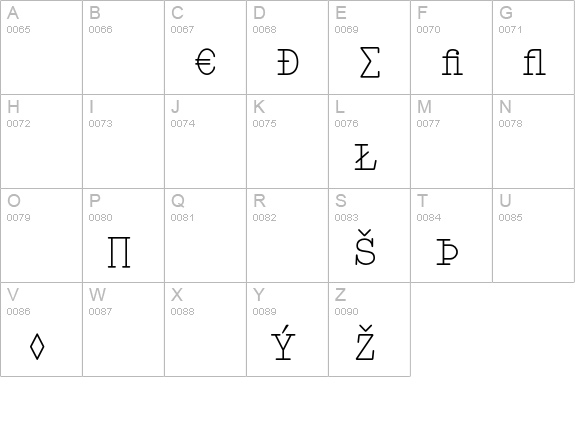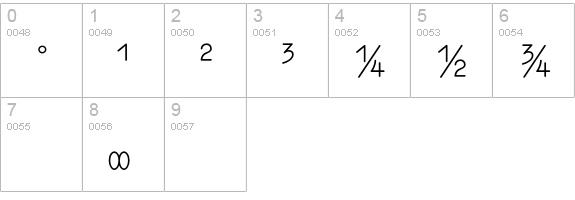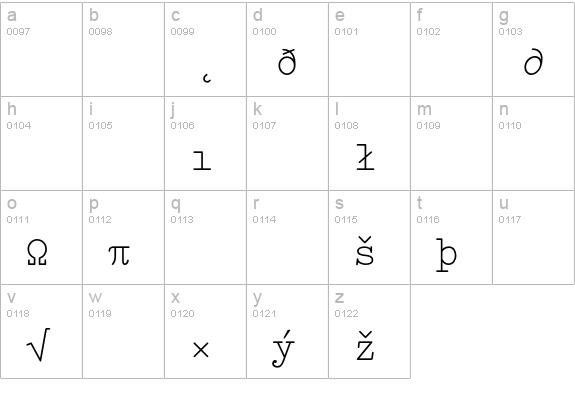
Elementa Expert Regular is the standard, neutral variant in the Elementa typeface family \xE2\x80\x94 well suited to general body text, paragraphs, and standard typographic work.
The Elementa Expert Regular font is an elegant and versatile typeface designed for professionals and creatives alike. With its clean lines and classic proportions, this font exudes sophistication and modernity. Perfect for a wide range of design projects, from editorial layouts to branding and packaging, Elementa Expert Regular adds a touch of refinement to any design. What's even better is that Elementa Expert Regular is available for free download at FontsMarket.com. This means you can easily access this high-quality font without any cost, making it a valuable addition to your font library. Don't miss out on the opportunity to elevate your designs with Elementa Expert Regular - download it today and see the difference it can make in your projects!